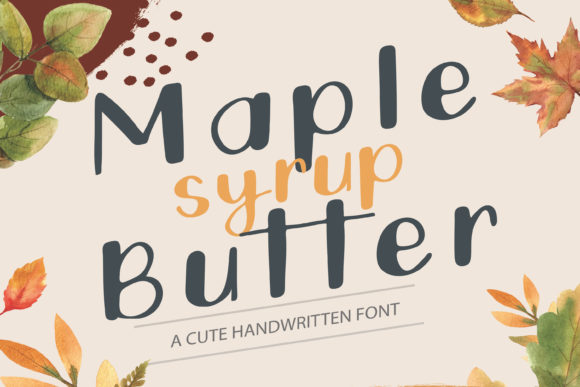
Indulge in the sweet and delightful world of Maple Butter Font! This enchanting script typeface, crafted by the renowned The Gelato, will whisk you away to a realm of creativity.
Maple Butter is a symphony of joyful strokes that dance and twirl across your screen. Its playful character lends an irresistible charm to every design, making it perfect for capturing the essence of handwritten letters. Whether you're a budding calligrapher or a seasoned designer, this font will ignite your imagination.
Imagine your words flowing seamlessly onto the page, carrying with them the warmth and personality of handwritten notes. From heartfelt quotations to eye-catching banners, Maple Butter adds a touch of elegance to any design. Its versatility knows no bounds, extending to logos, product packaging, and even digital note-taking.
Let Maple Butter's friendly and inviting demeanor complement your creative vision. Its unwavering charm will enhance the impact of your designs, leaving a lasting impression on your audience. Embrace the sweet allure of Maple Butter Font today and unlock a world of typographic wonders!